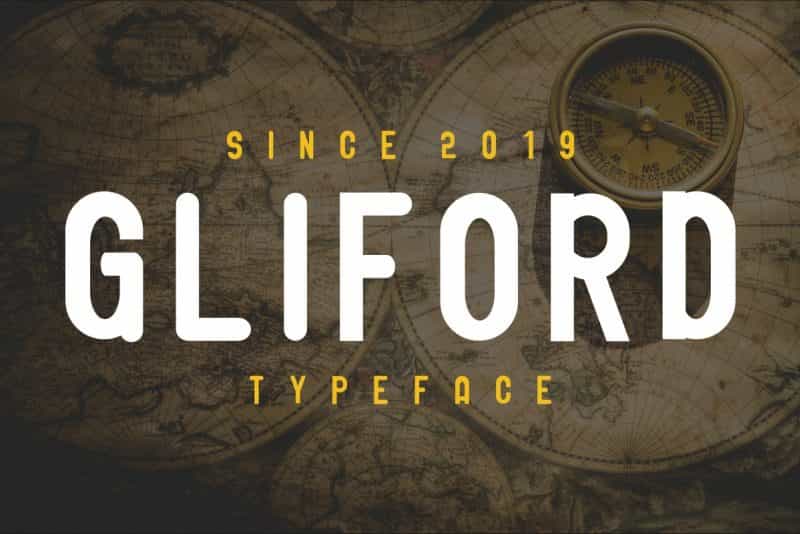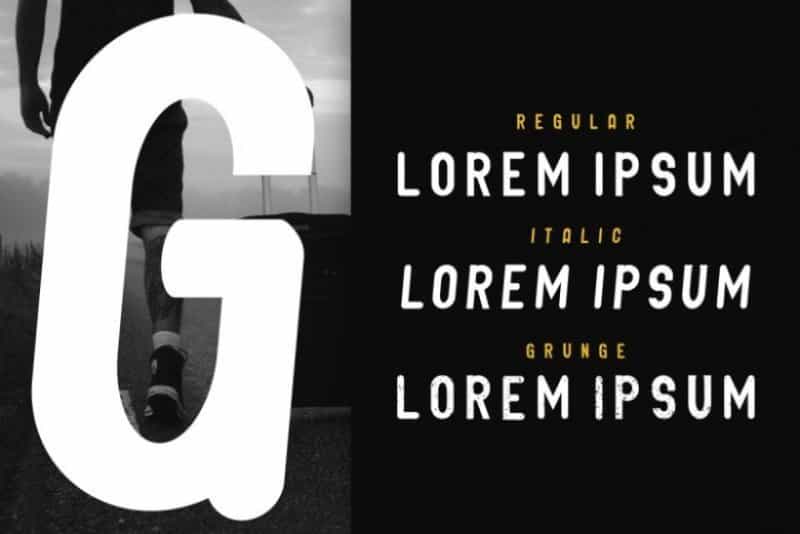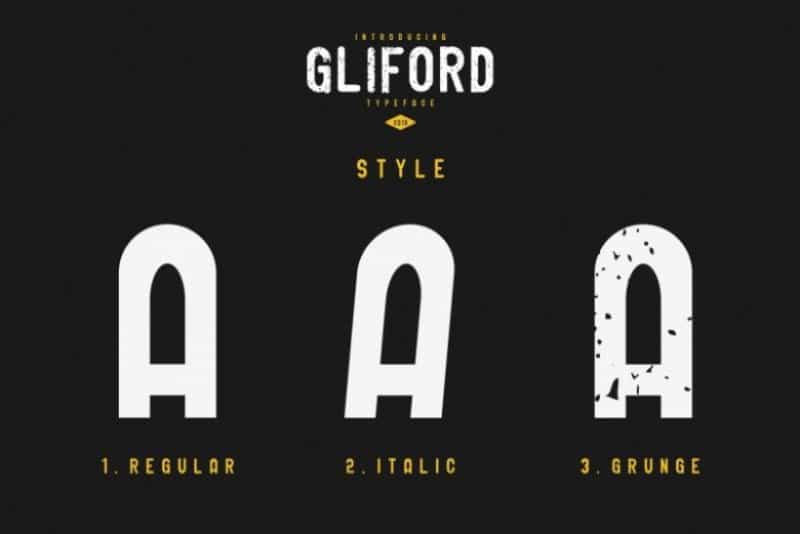
Hi Everybody! Kindly meet : Giford! This is a Sans-Serif font which has many applications. The initial theme was Retro-Vintage Style, but now we understand that it is more than just vintage items. It has THREE STYLES : Standard, Grunge and Italic The Normal one is the Most Frequently Used!It is versatile and can be used for comic, branding, schools, kids theme etc. Grunge is a unique retro-vintage un-usual style while Italic is the lady of stylish yet fun.